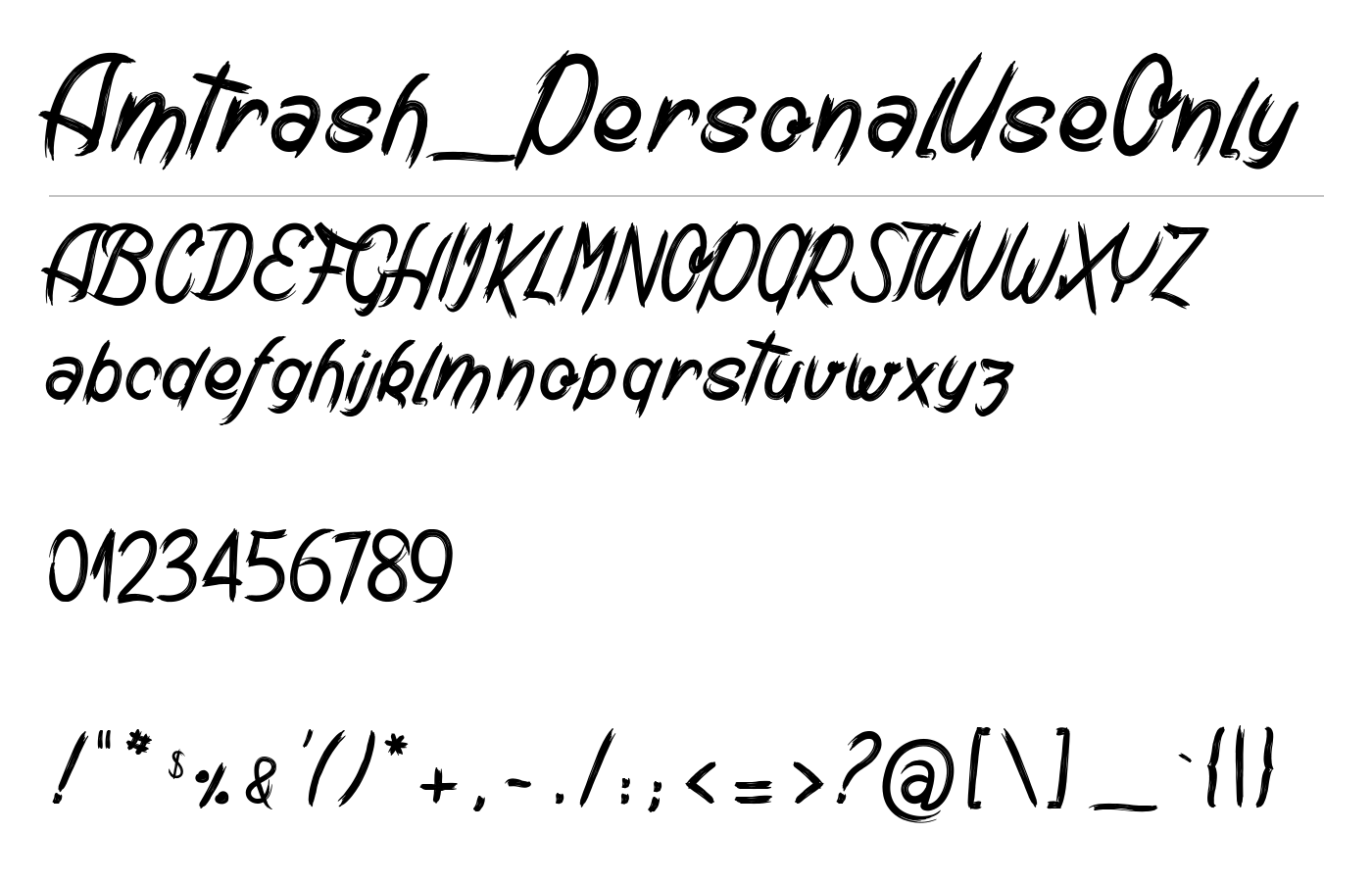
Amtrash PersonalUseOnly is a dynamic script font with a bold, brushstroke style that feels energetic and expressive. Its slightly condensed letterforms and rough-edged strokes give it a raw, artistic flair, making it ideal for creative projects, posters, and branding that seek a handcrafted, edgy vibe. This font works best when used in headlines or logos that want to convey a sense of movement and personality.
Amtrash_PersonalUseOnly Font
About Amtrash_PersonalUseOnly Font